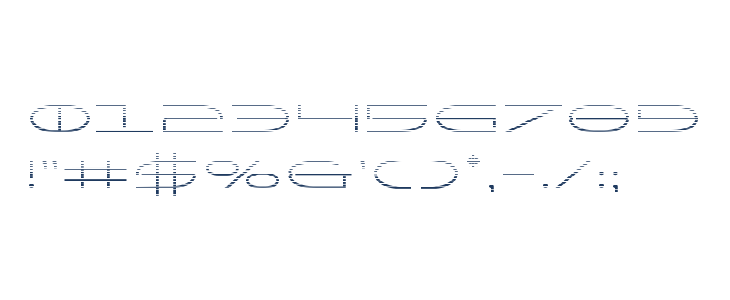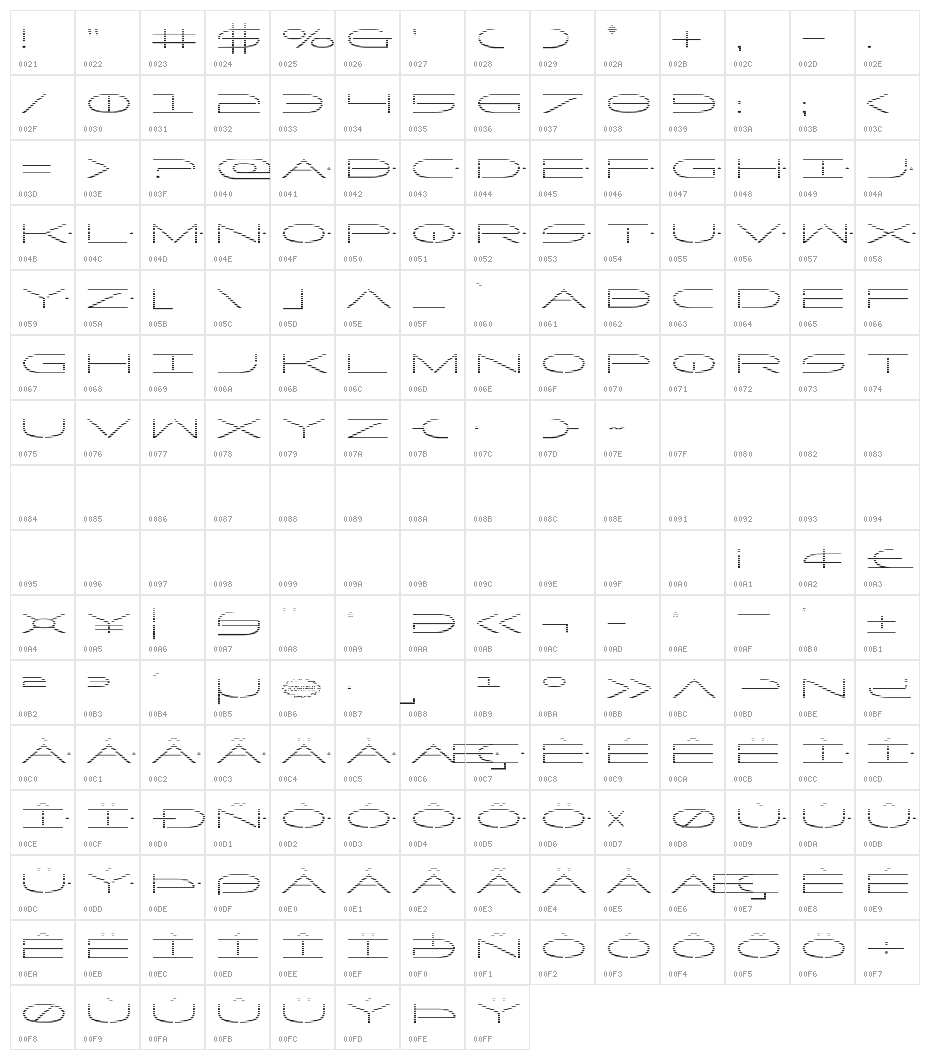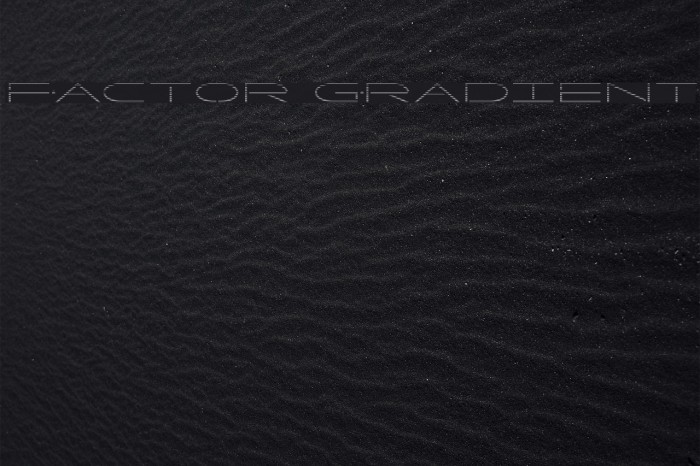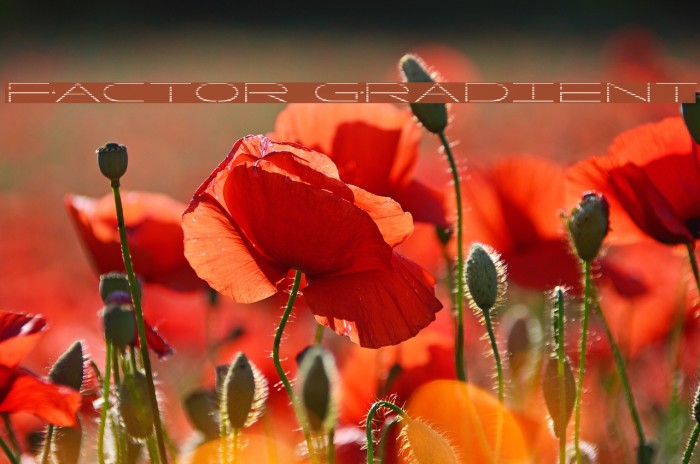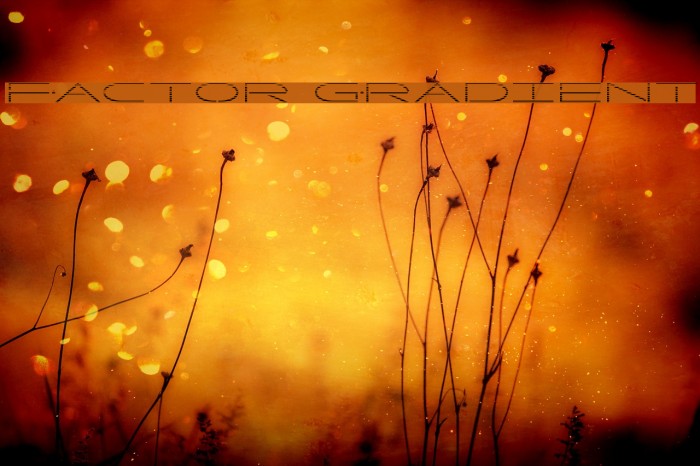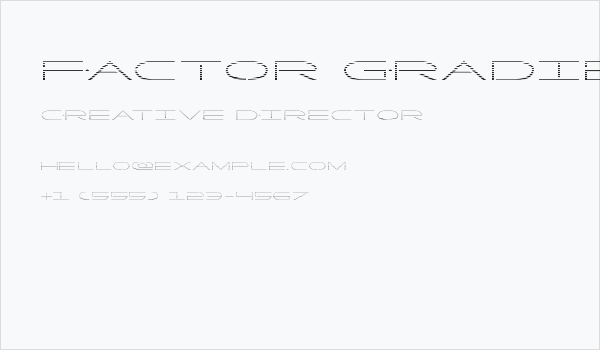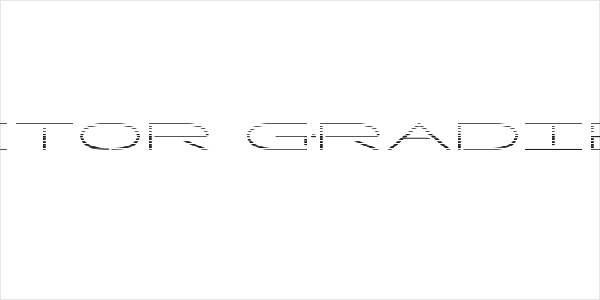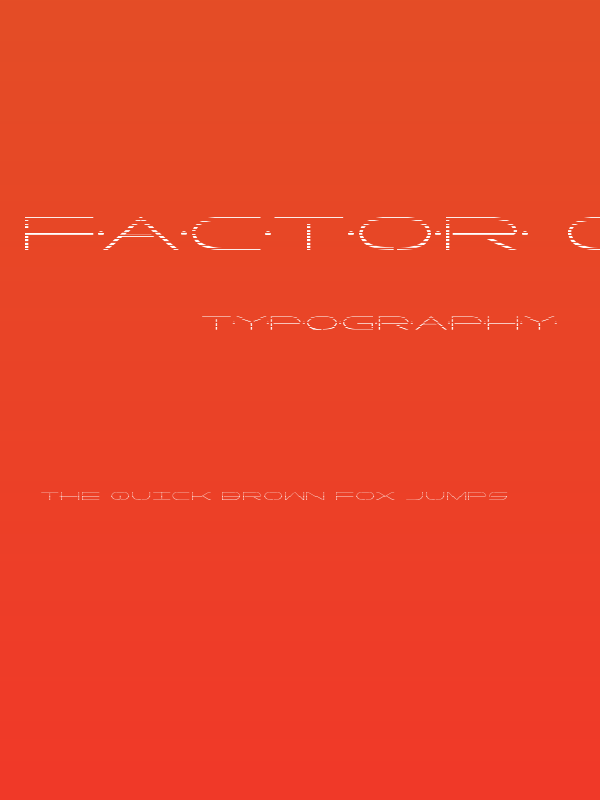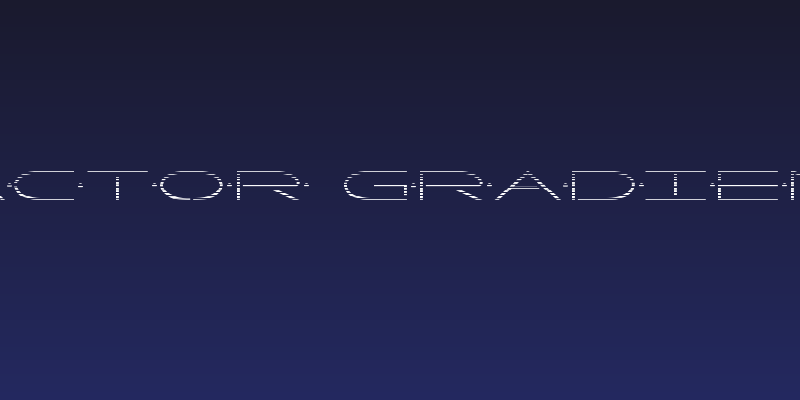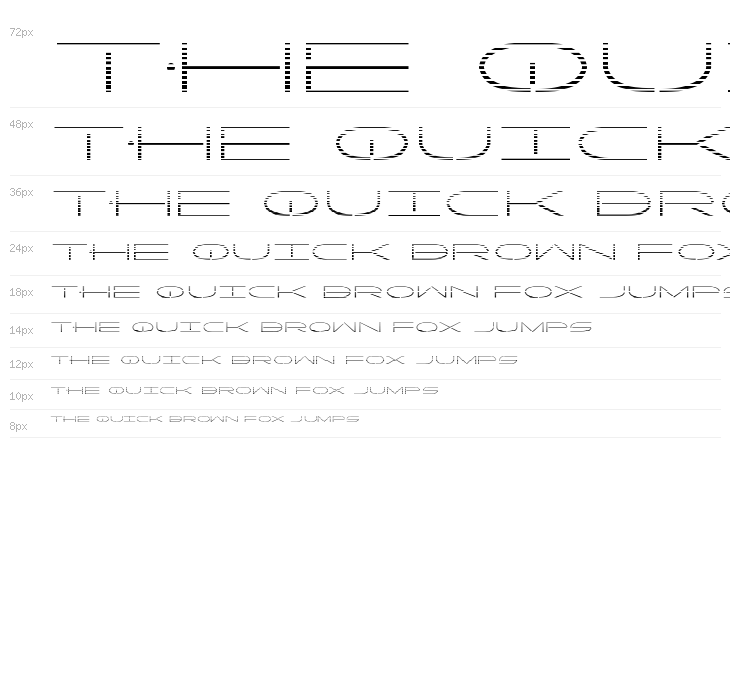
Factor Gradient Font
Factor Gradient Description
This font features a modern and futuristic design with a unique gradient effect that creates a sense of movement and depth. The characters are constructed with a series of parallel lines that give them a digital, almost pixelated appearance. This design choice results in a visually striking and distinctive look that is both contemporary and innovative. The uppercase and lowercase letters maintain a consistent style, with clean lines and geometric shapes. The numerals and special characters are designed to complement the alphabet, ensuring a cohesive overall appearance. This font's aesthetic is ideal for projects that require a cutting-edge, tech-inspired look.
| Use Case | Logos, Headlines, Digital media |
| Proposed Projects | Ideal for tech branding, digital media, futuristic posters, and innovative product packaging. |